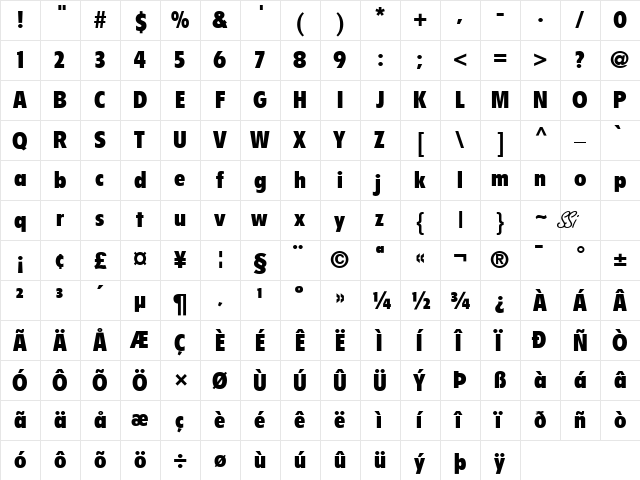
Emphasis Black Condensed SSi Bold Condensed Font Preview
Design Context for Emphasis Black Condensed SSi Typeface
Emphasis Black Condensed SSi is a composed and adaptable typeface that performs quietly and consistently across a wide range of design contexts. Its bold stroke weight gives it real presence on the page. The condensed width makes it efficient for tight spaces without sacrificing legibility.